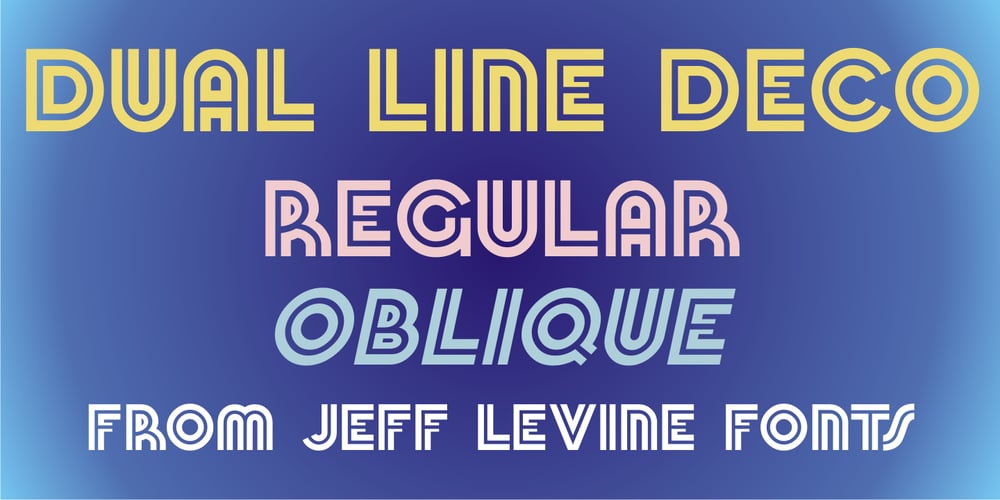
Dual Line Deco JNL
Dual Line Deco JNL font
Dual Line Deco JNL Font Family was designed by Jeff Levine and published by Jeff Levine. Dual Line Deco JNL contains 2 styles and family package options. Sheet music for the title song from the 1933 Jean Harlow-Clark Gable film “Hold Your Man” has the movie title hand lettered in a dual line sans serif with Art Deco influences. This is now available as Dual Line Deco, and is available in both regular and oblique versions. The song itself was written by Arthur Freed and Nacio Herb Brown, whose vast catalog of musical compositions was tapped for the 1952 musical classic “Singing in the Rain”.